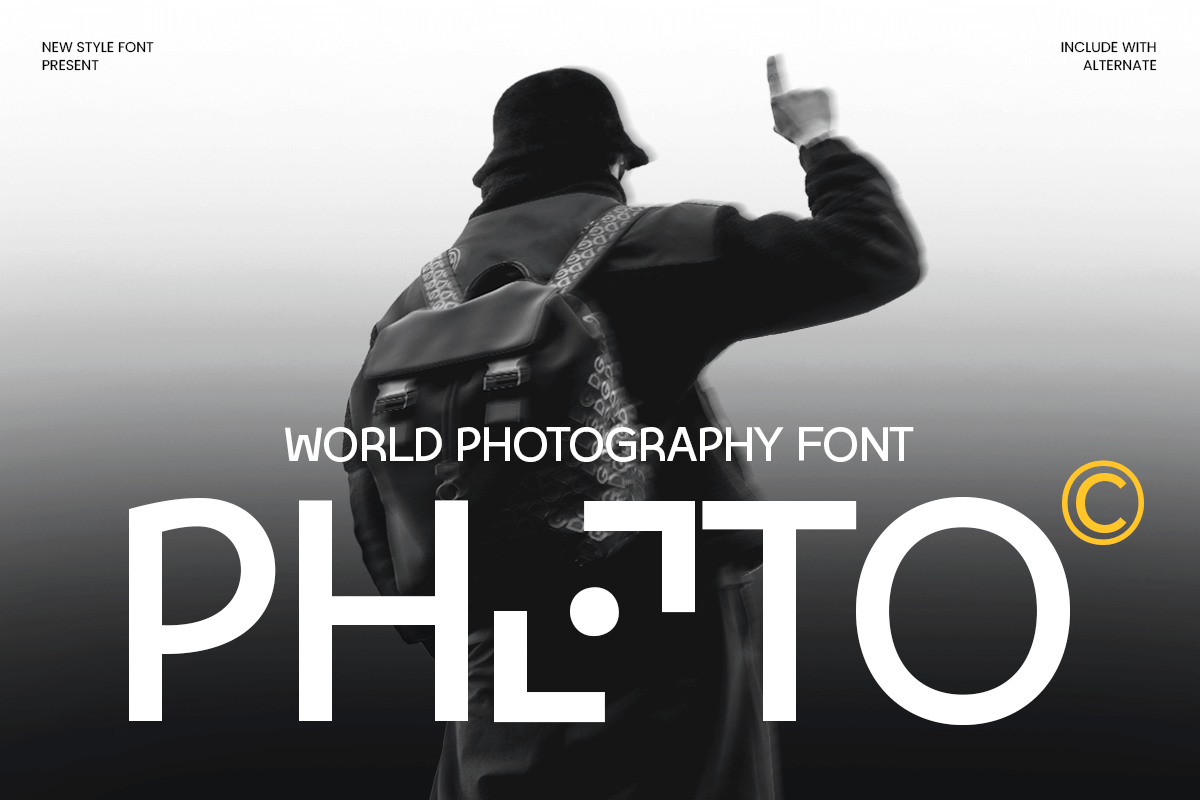
Photo
PHOTO is a world photography font that captures the elegance and artistry of photography. Designed for photographers, studios, and creative professionals, PHOTO combines a modern, sleek aesthetic with the timeless appeal of visual storytelling. Whether you're crafting a logo, portfolio, or promotional materials, this font provides the perfect balance of clarity and style.
With its clean lines and sophisticated letterforms, PHOTO is ideal for elevating your photography brand. The versatile design works across a wide range of applications, from personal portfolios to corporate photography studios, giving your brand a polished and professional identity.
PHOTO – World Photography Font Features
Elegant, modern letterforms perfect for photography branding
Ideal for logos, business cards, websites, and photography portfolios
Minimalist and sleek design with artistic appeal
OpenType features for advanced typographic styling